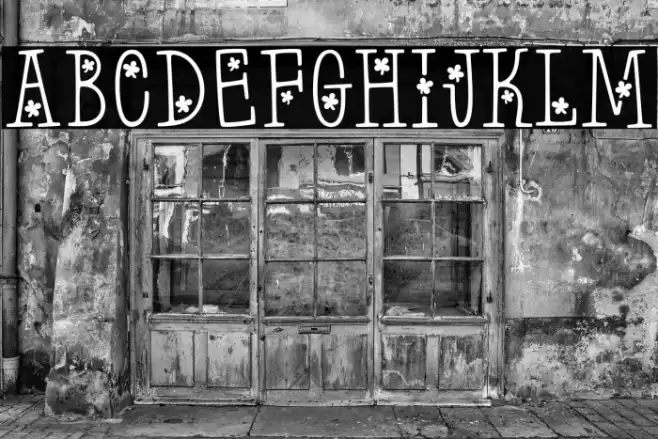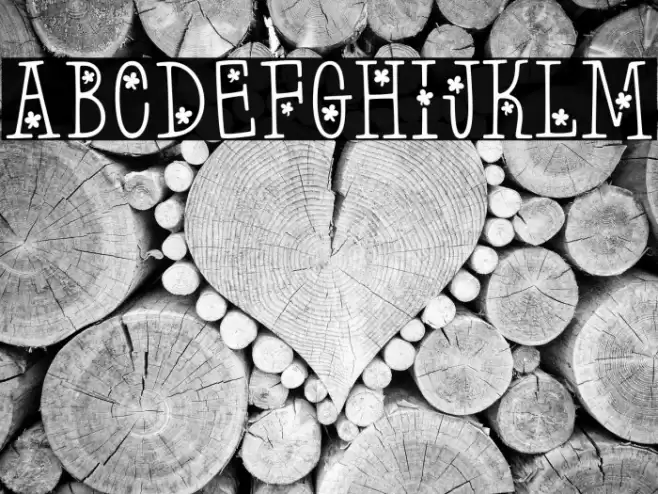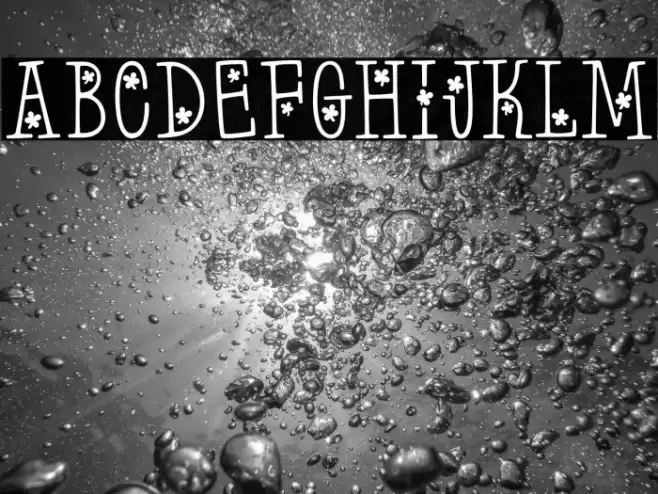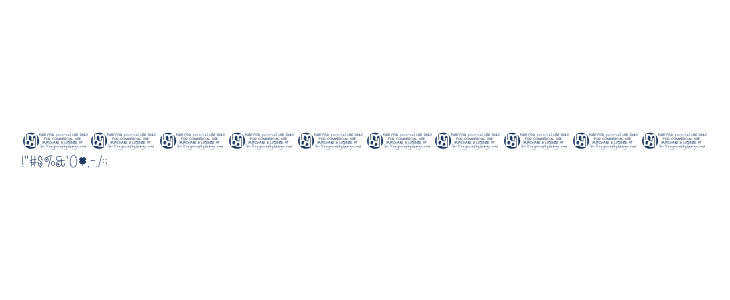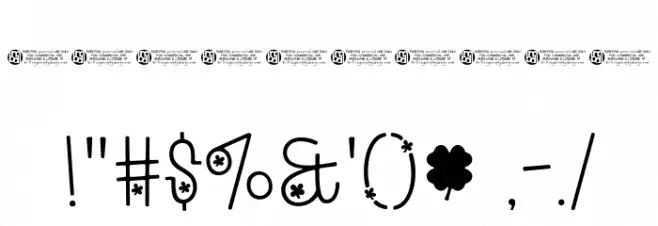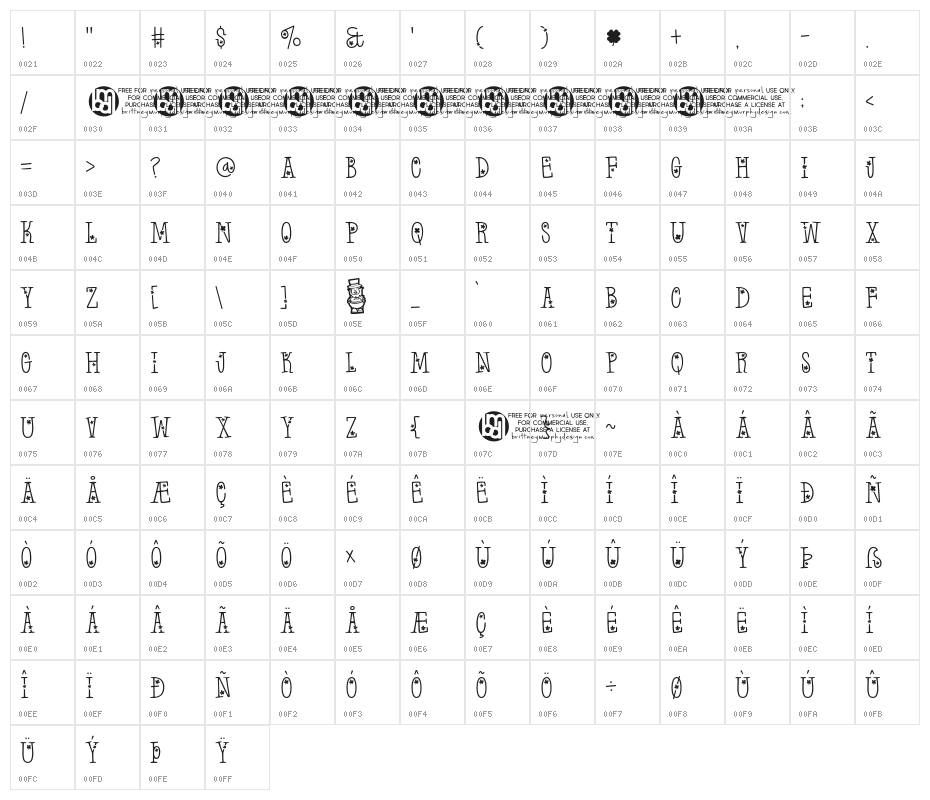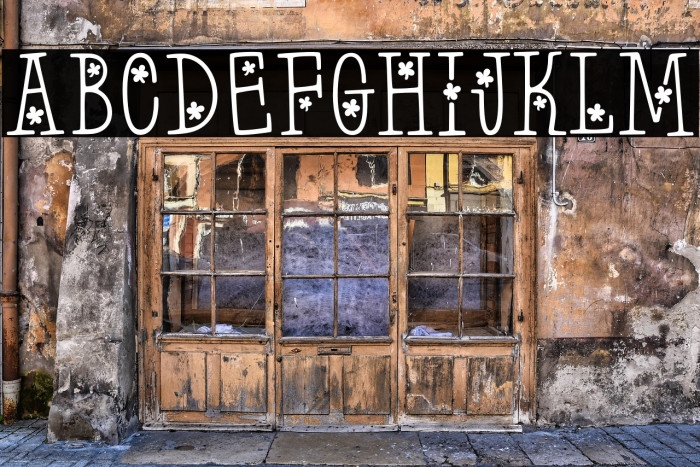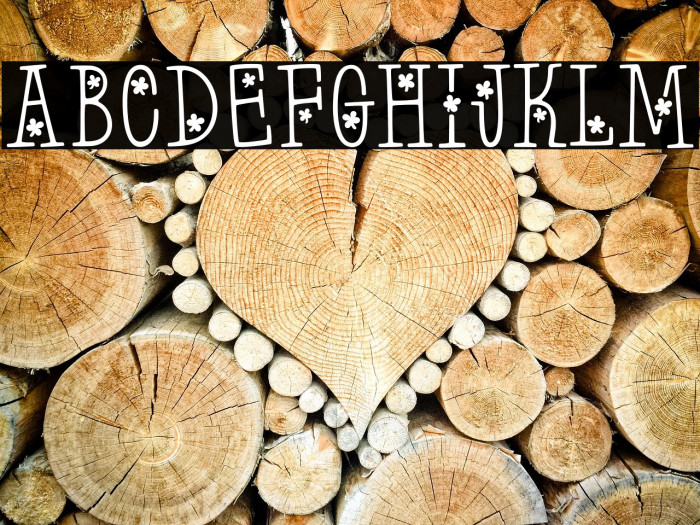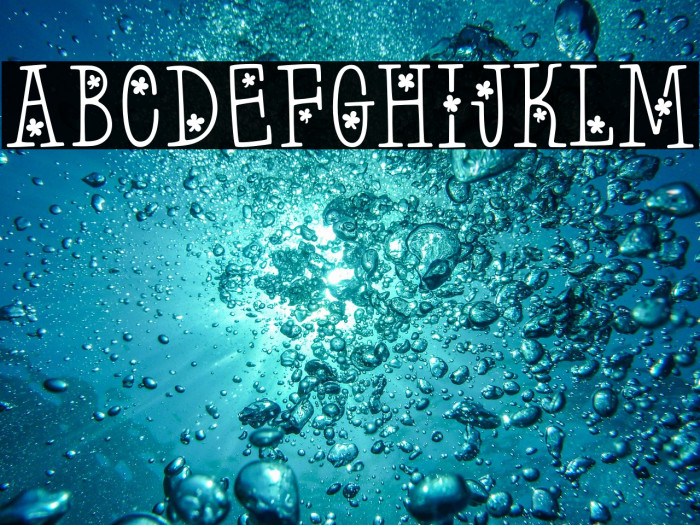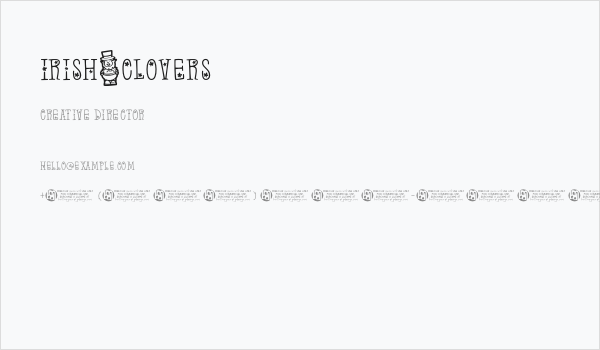
Irish^Clovers Font
Irish^Clovers Description
This whimsical font features a playful and decorative style with clover leaf accents integrated into each character. The letters are bold and slightly rounded, giving them a friendly and approachable appearance. The clover motifs add a unique charm, making it ideal for festive or themed designs. The font maintains a consistent weight throughout, ensuring readability while still offering a distinctive flair. Its decorative nature makes it stand out, perfect for projects that require a touch of personality and creativity.
A playful, decorative font with clover accents and bold, rounded characters from Uncategorized fonts.
- Proposed Projects: Ideal for St. Patrick's Day promotions, greeting cards, festive banners, and themed party invitations.